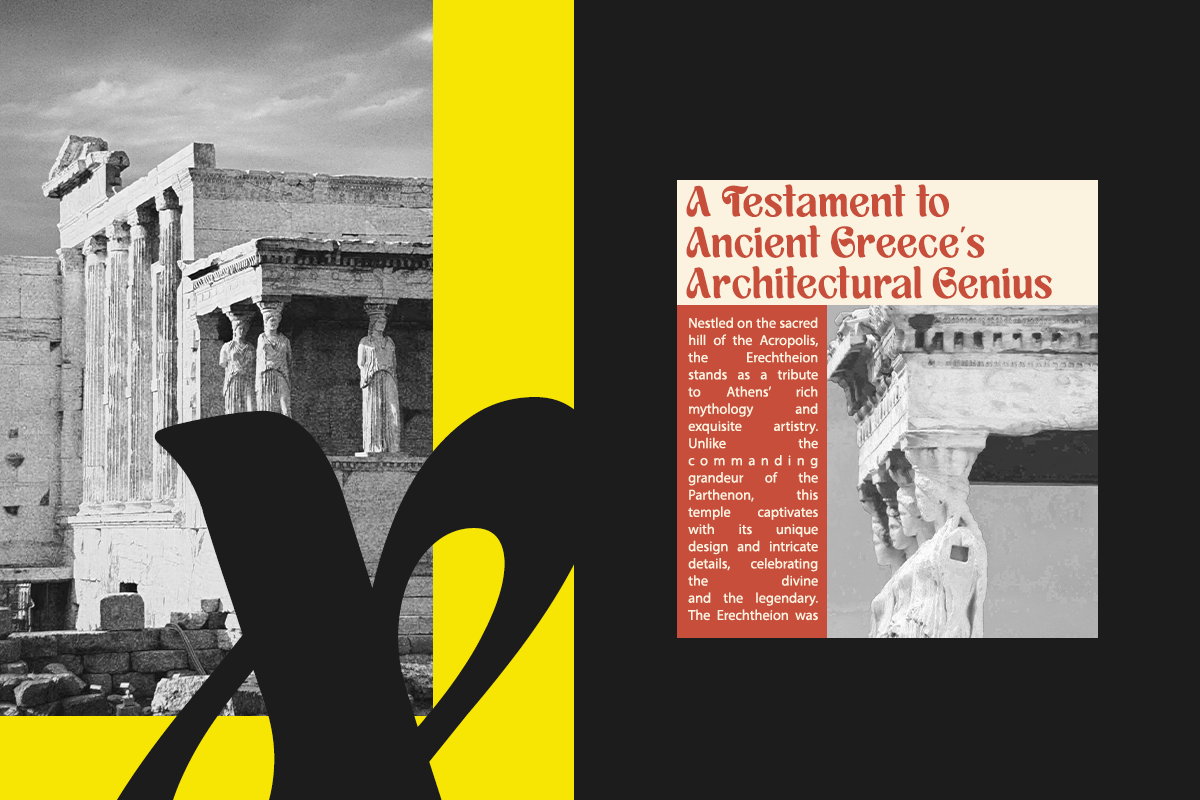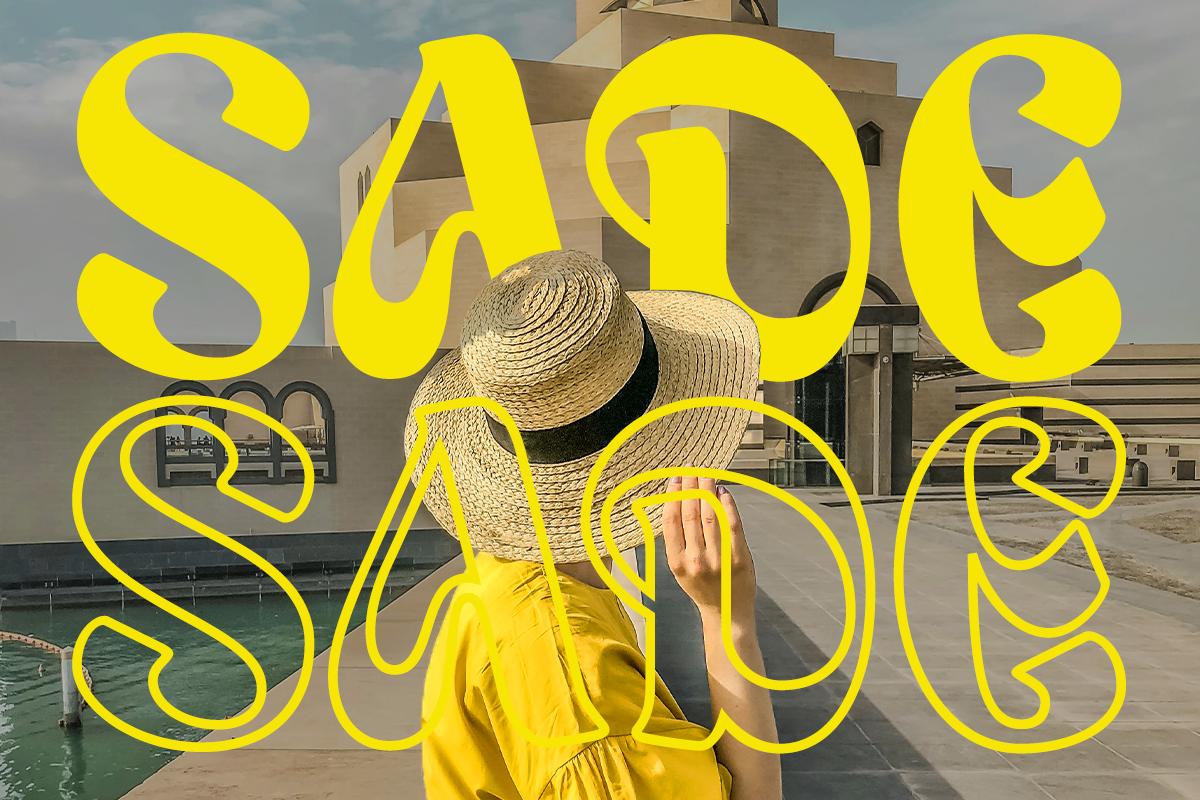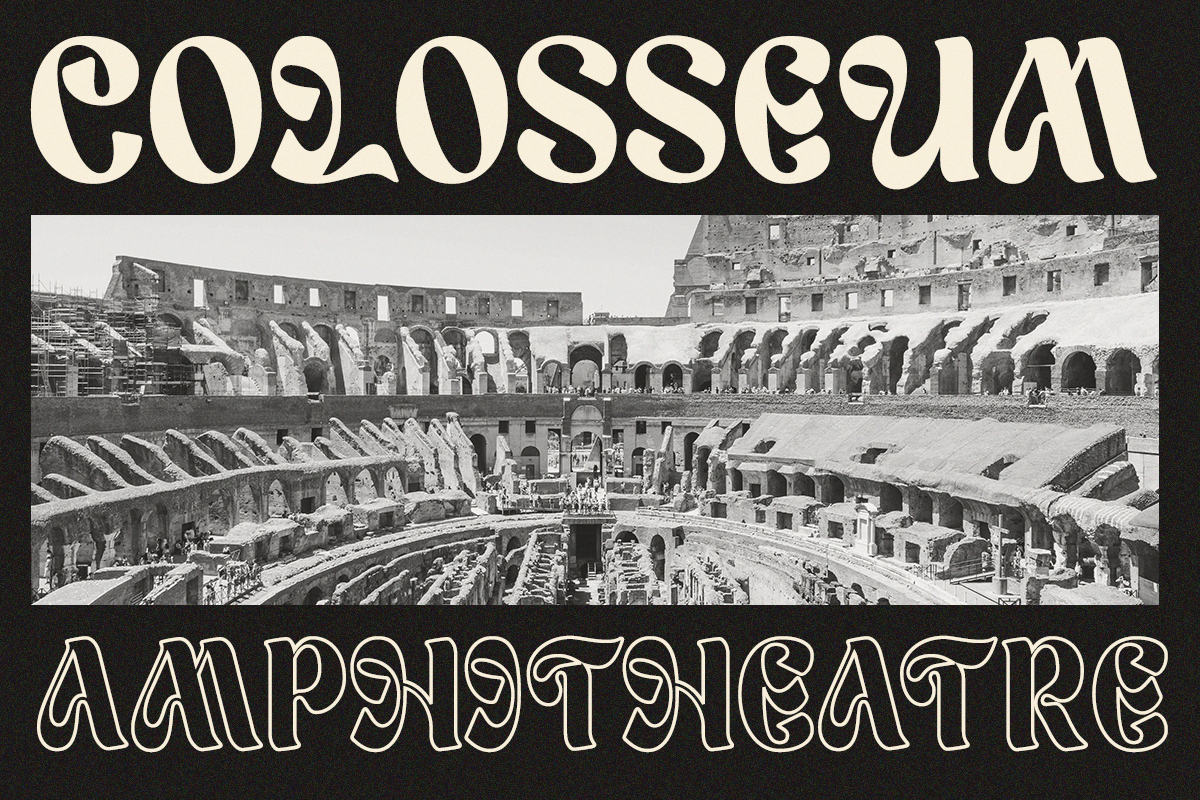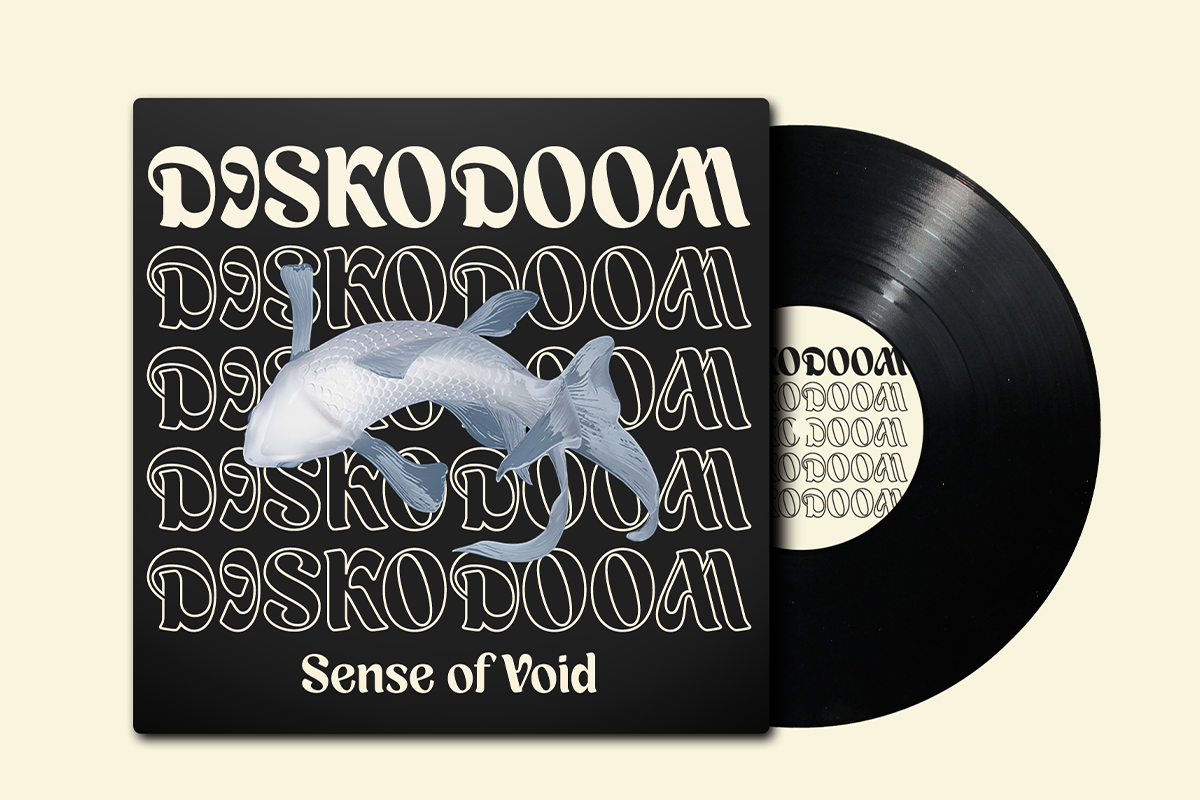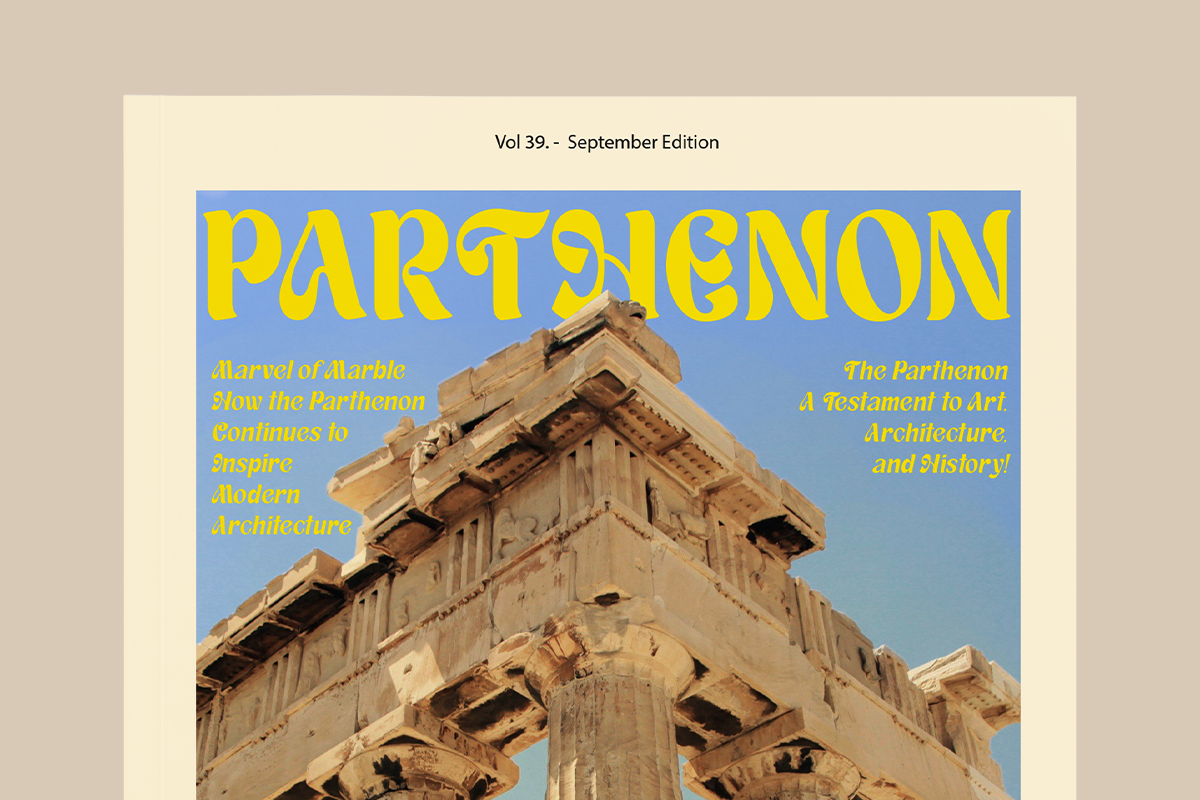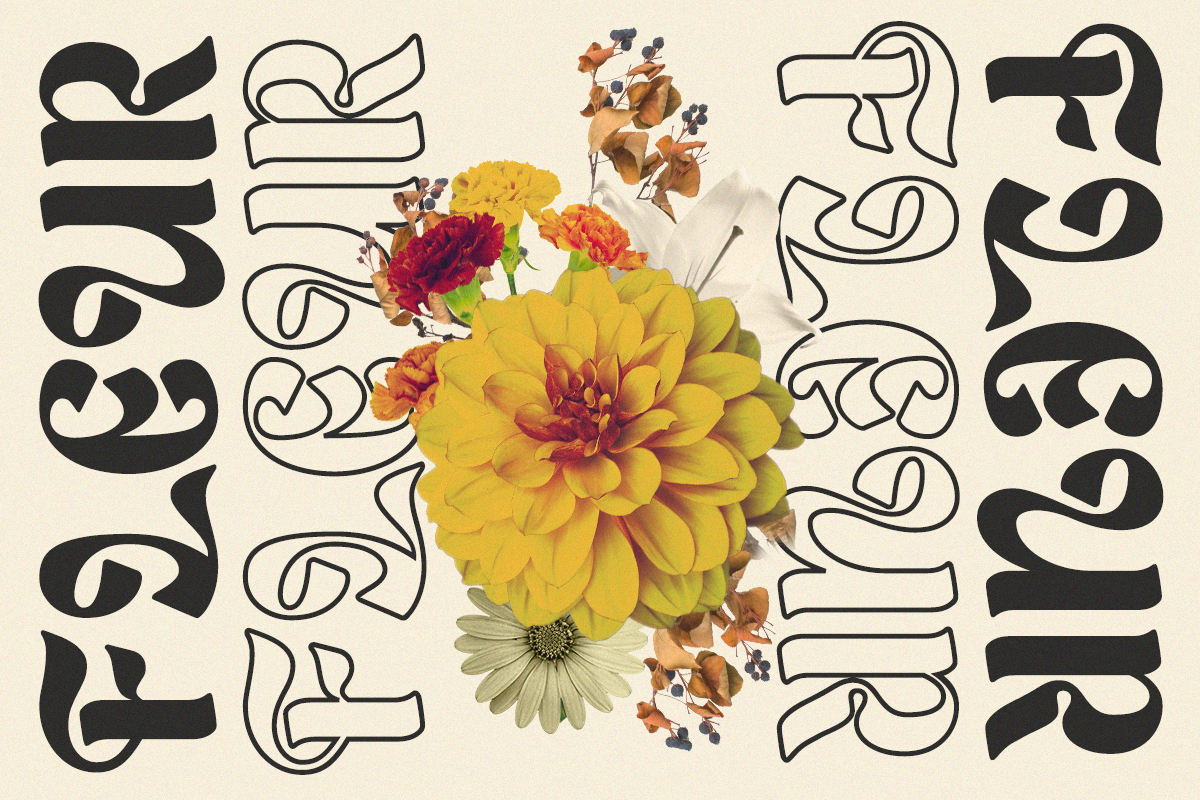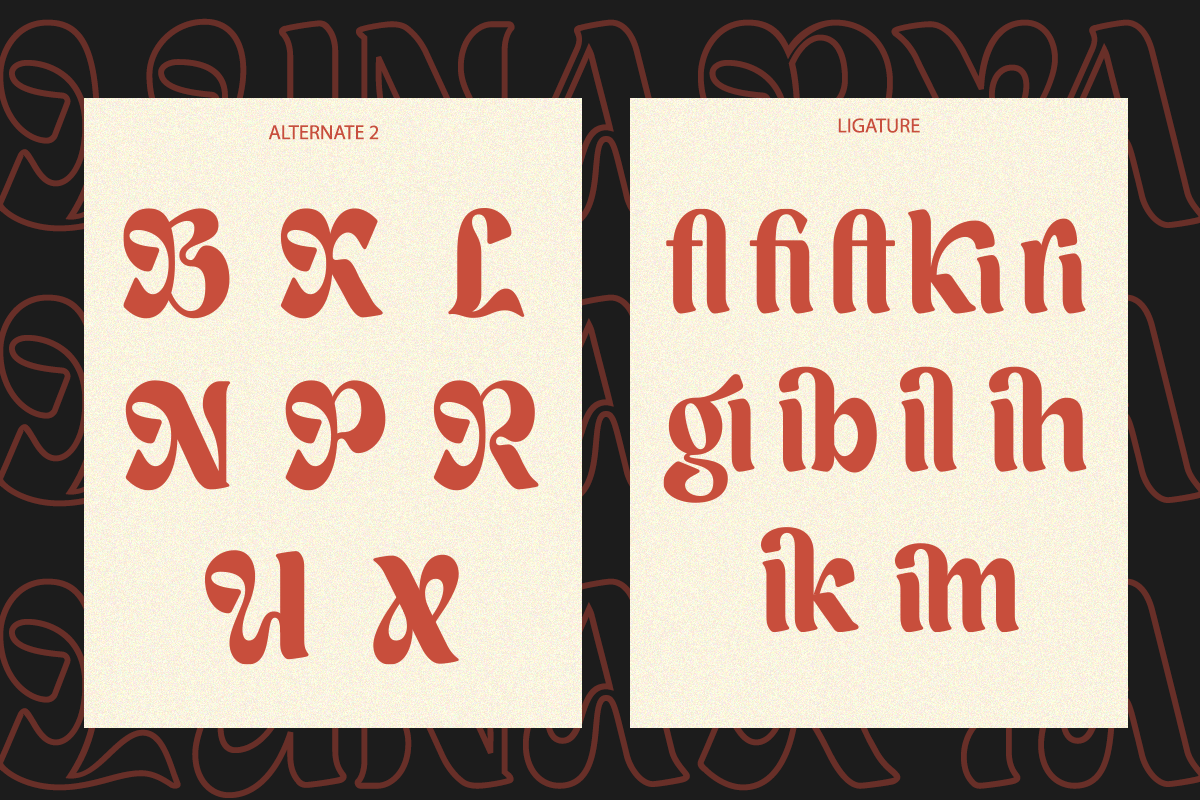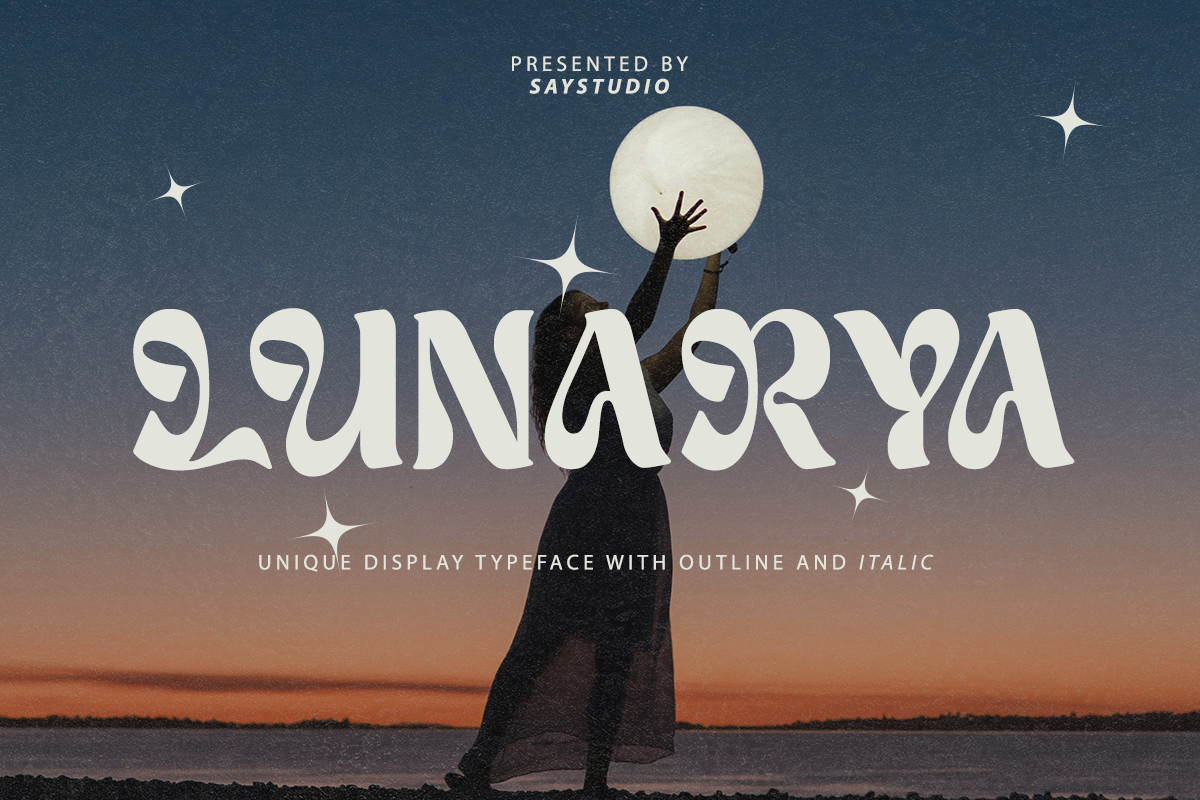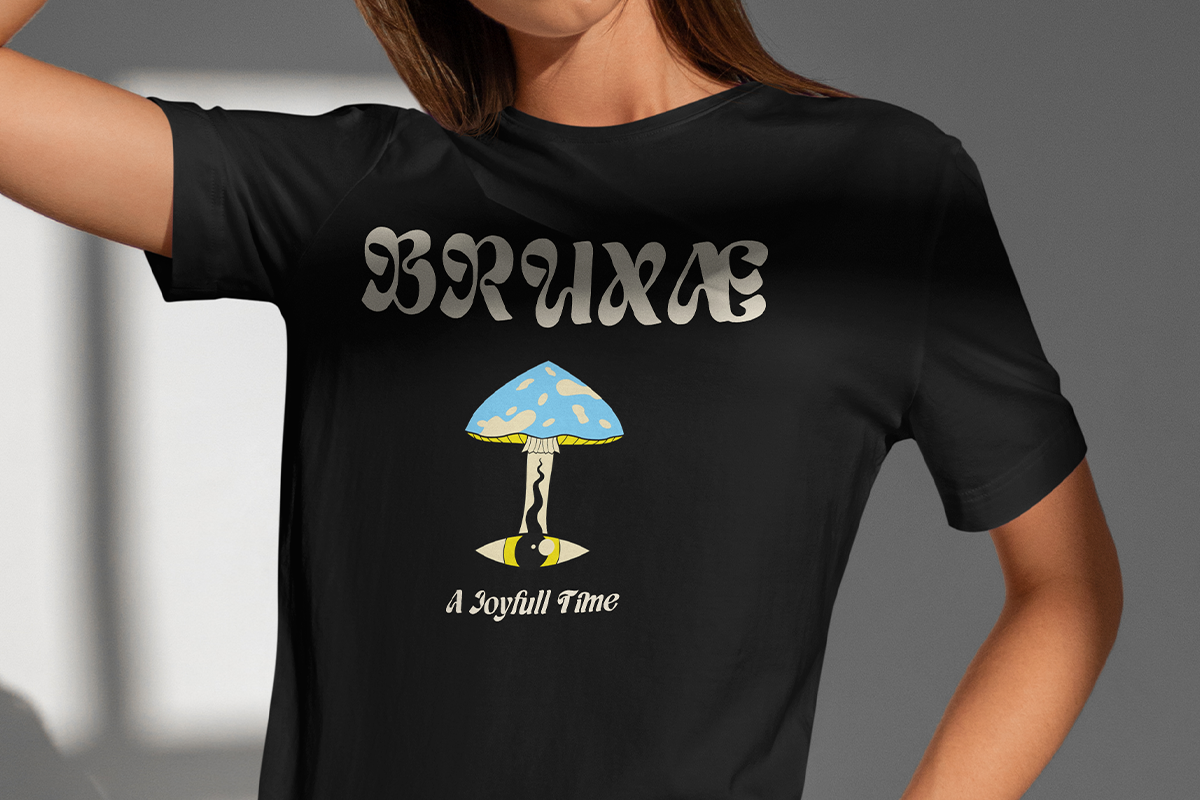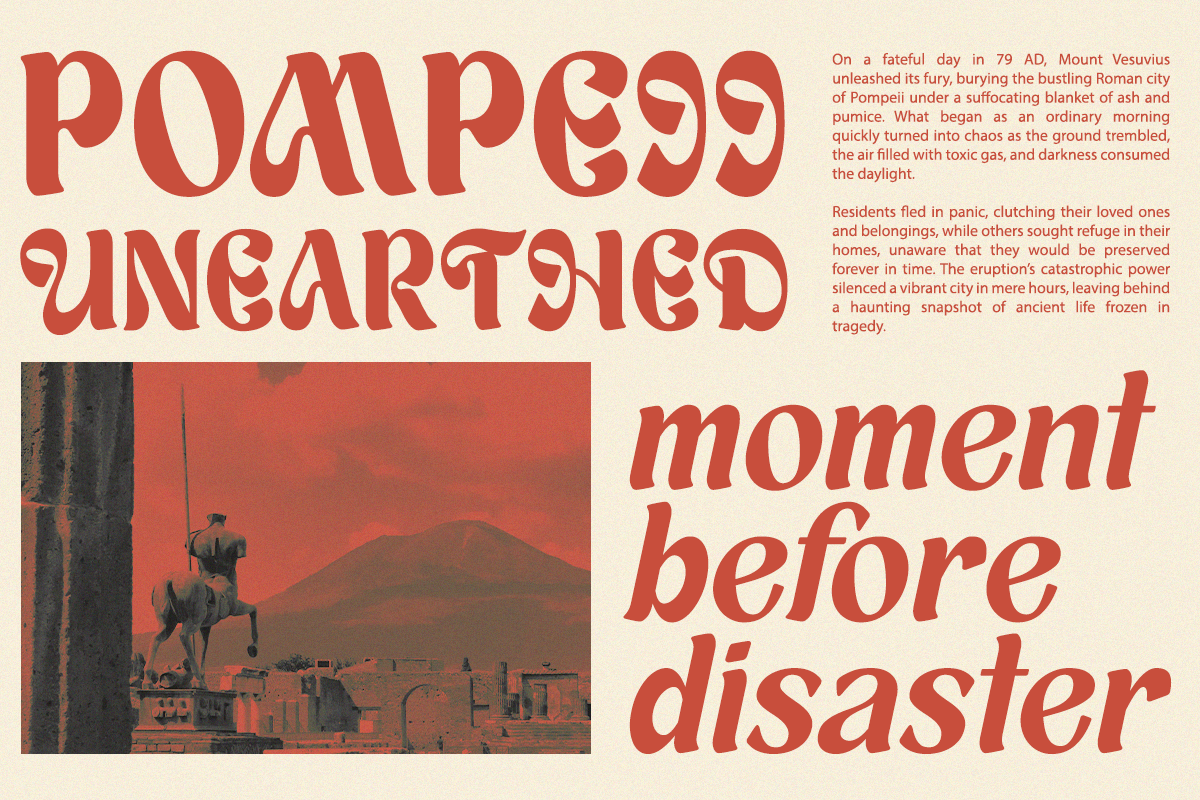
Lunarya - Unique Display Font
Introducing Lunarya is a Unique Display Font with Outline and Italic Style. All capital letters with psychedelic style. Lunarya have some Special Alternates and ligatures some fun nuance to your design. This font is perfect for t-shirt design, book cover, title, and many more.